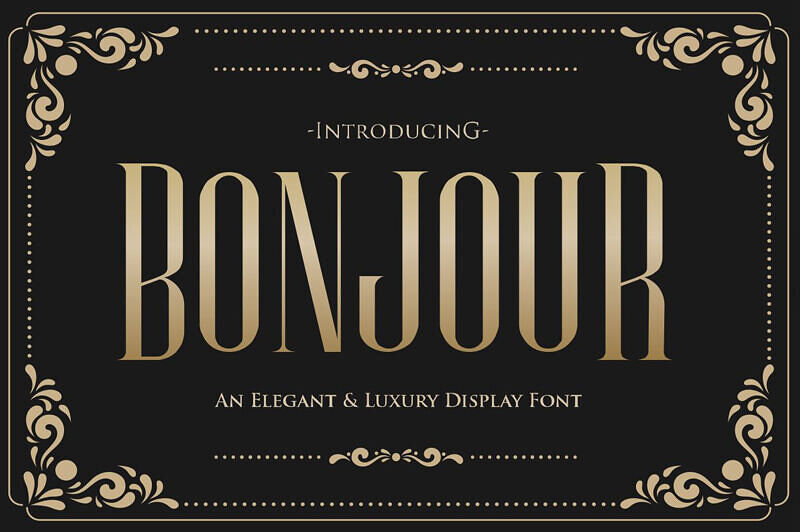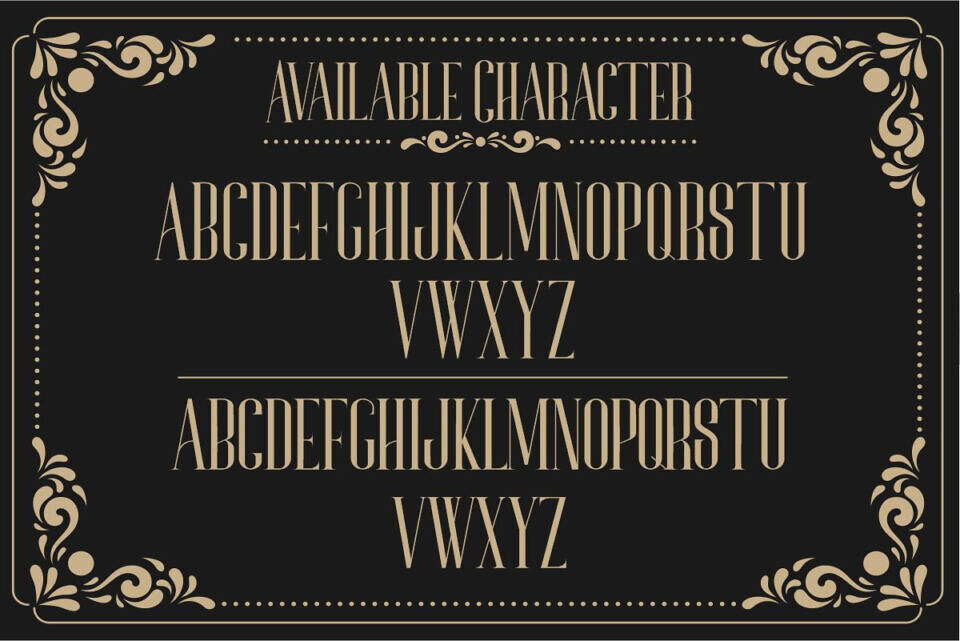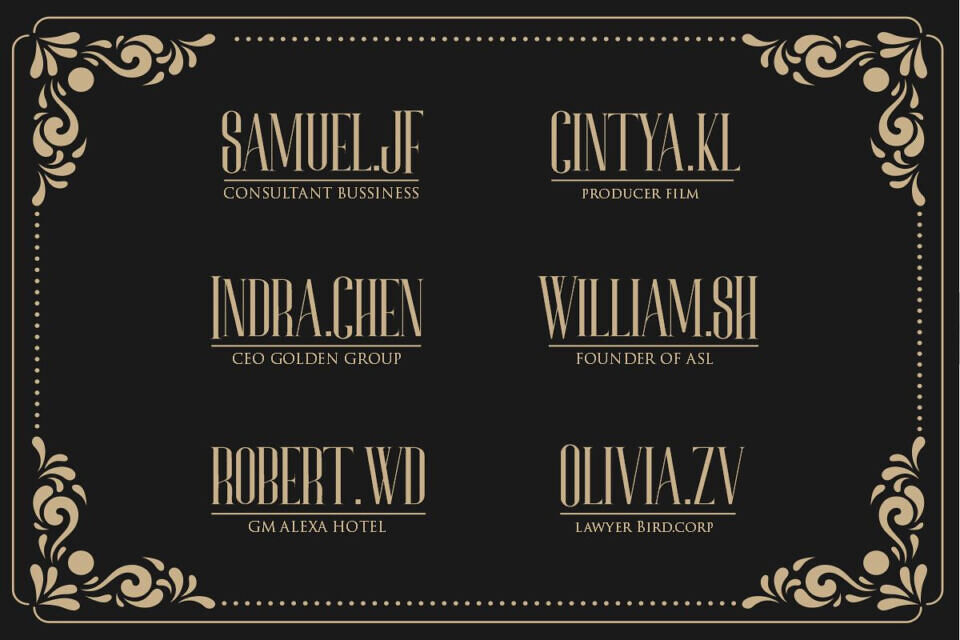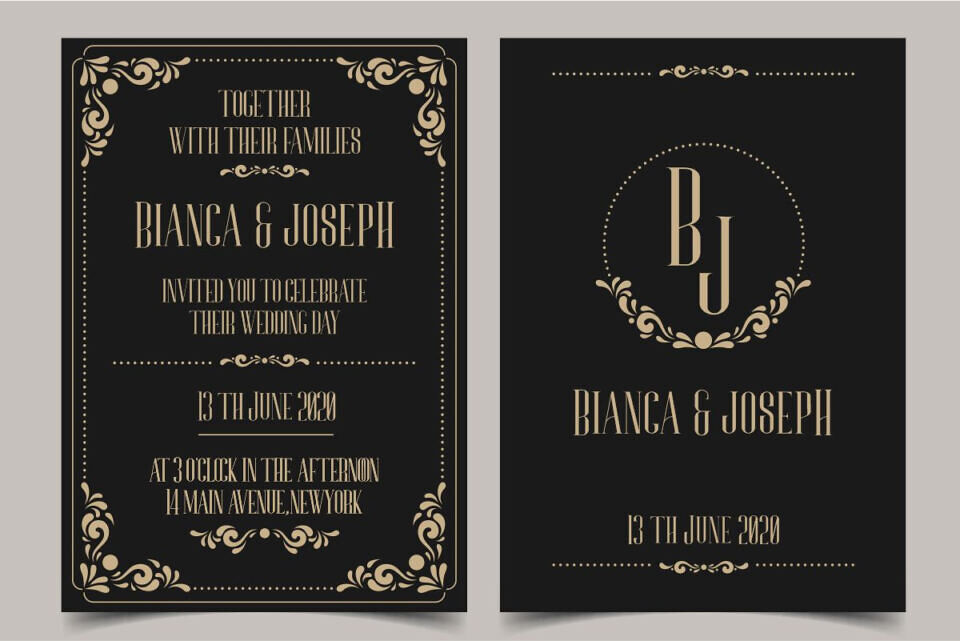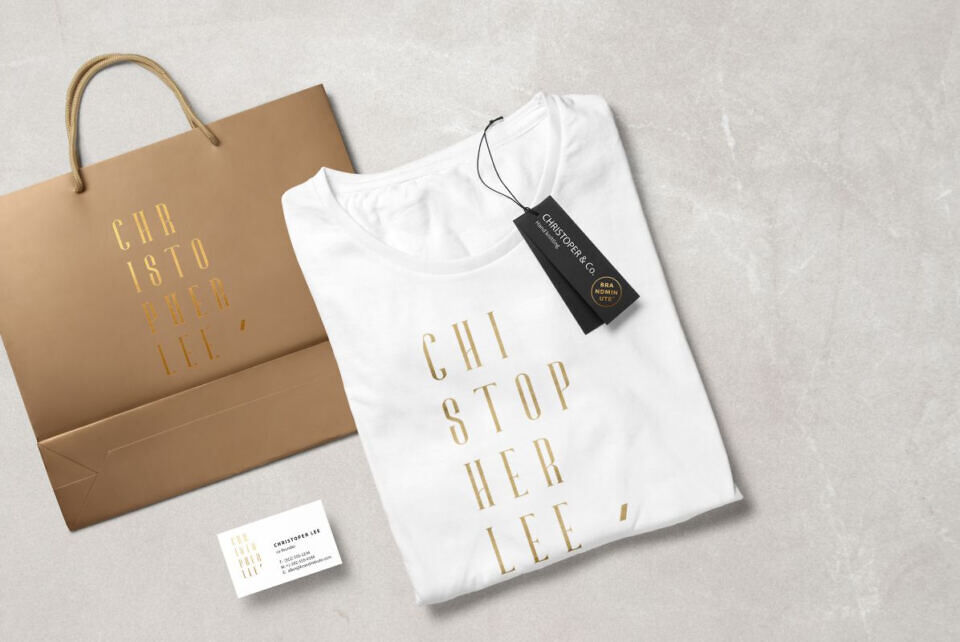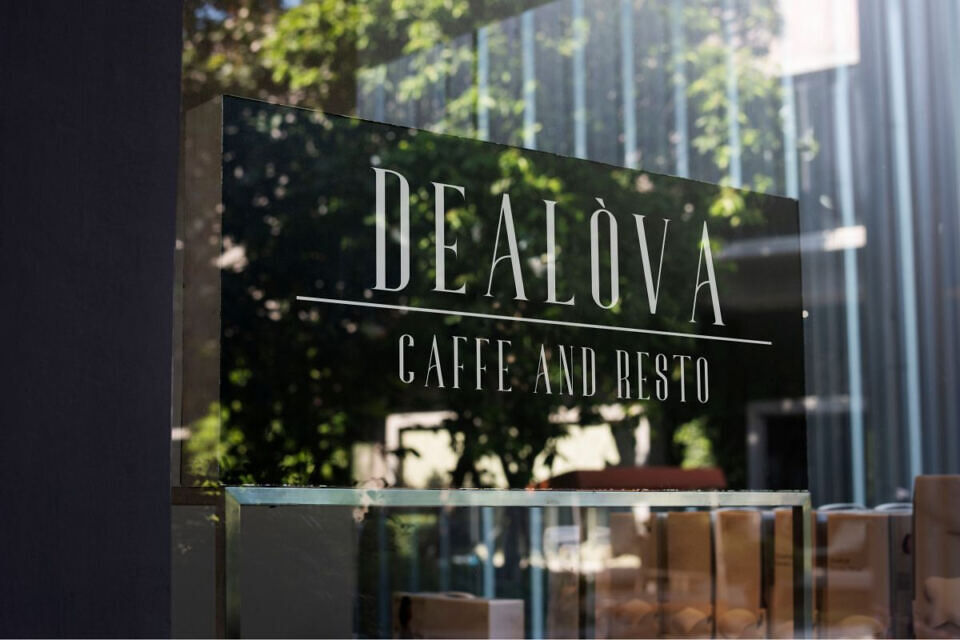
Bonjour Font
Bonjour is a minimal, yet elegant sans serif font. Suitable to a wide variety of designs due to its neat and simple style, Bonjour has the potential to become your favorite go-to font, no matter the occasion!
Designed by: Gilar Studio